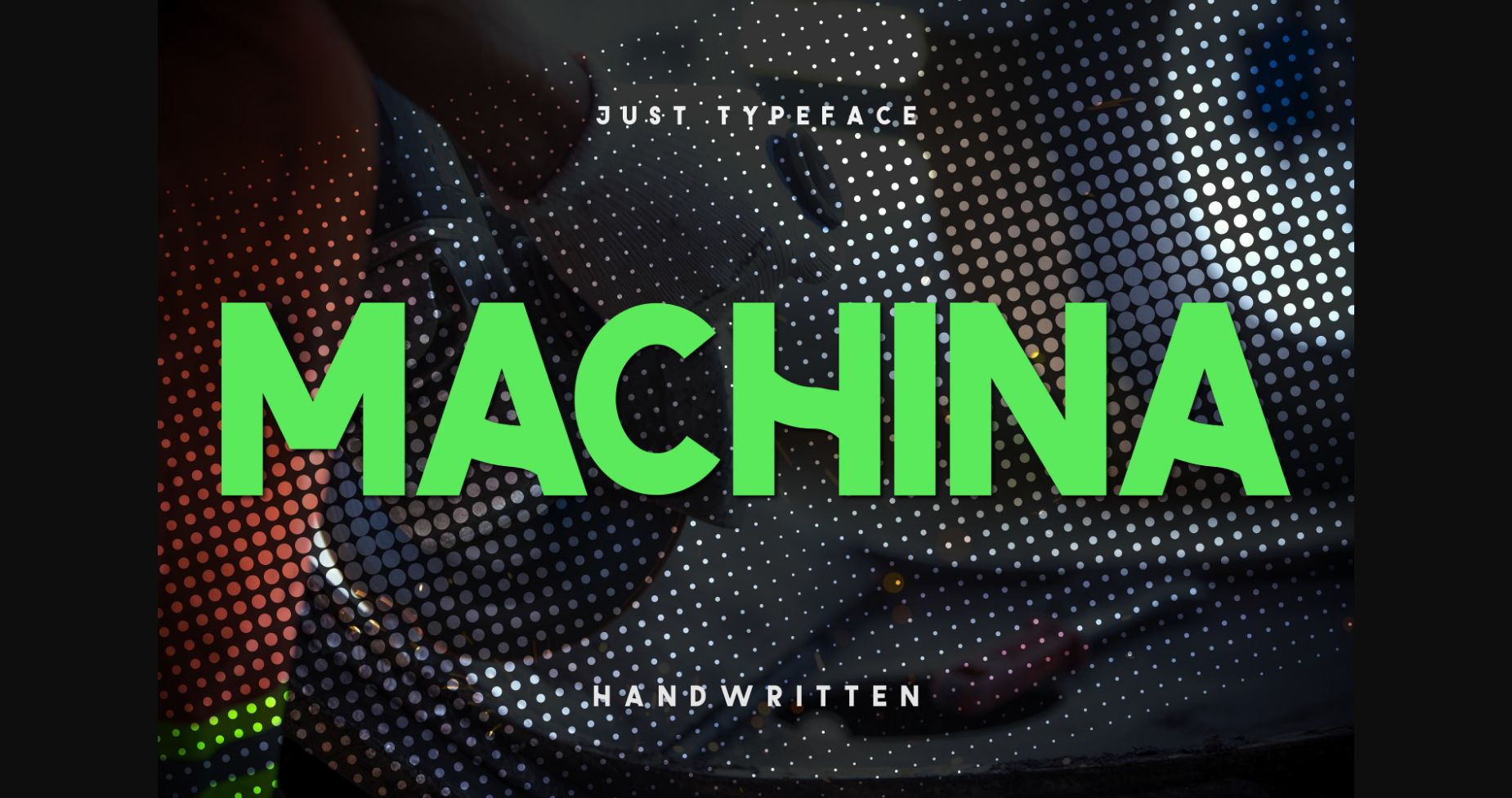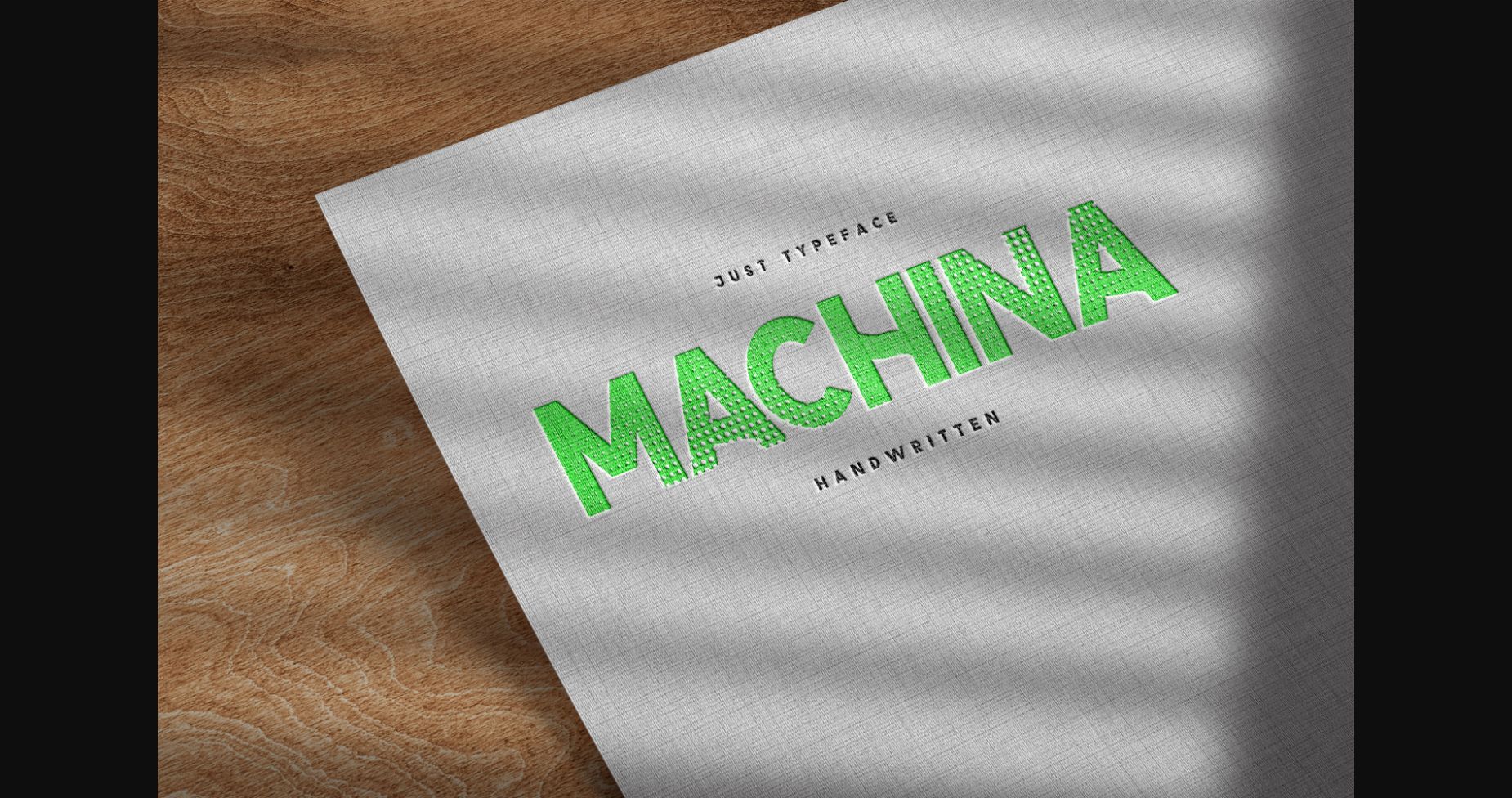
HomeSans Serif FontsMachina Font Sans Serif Fonts Machina Font FacebookXPinterestWhatsApp 1 of 4 ... Machina Font Poster 2... Machina Font Poster 3... Machina Font Poster 4... About Machina Font Machina is a fun and quirky sans serif font. Add it to your crafty ideas and enjoy the results! DOWNLOAD NOW People also explored Mastertext Behina Font Hulya Script Font Wonderful Time Font Brody Gaming Font Cathedrall Font Patrick Winne Font Wimter White Font Dolce Latte Font 452 0 TagsMachinaMachina Font Previous articleWeuhate FontNext articleKawede Font LEAVE A REPLY Cancel reply Comment: Please enter your comment! Name:* Please enter your name here Email:* You have entered an incorrect email address! Please enter your email address here Website: Save my name, email, and website in this browser for the next time I comment. Personal Use Free Austin Personal Use Free Read more about this font Histeria Bites Personal Use Free Read more about this font Imelda Personal Use Free Read more about this font Farmgarden Personal Use Free Read more about this font BLOG How to Install and Use Fonts on Windows, macOS, and Web Projects How to Install and Use Fonts on Windows, macOS, and Web Projects Fonts are a crucial part of design and branding. Whether you’re designing a... 5 Fonts That Will Dominate Design Trends in 2026 To increase your work productivity, choose the most readable fonts. Modern Sans-Serif Fonts That Brands Love in 2025